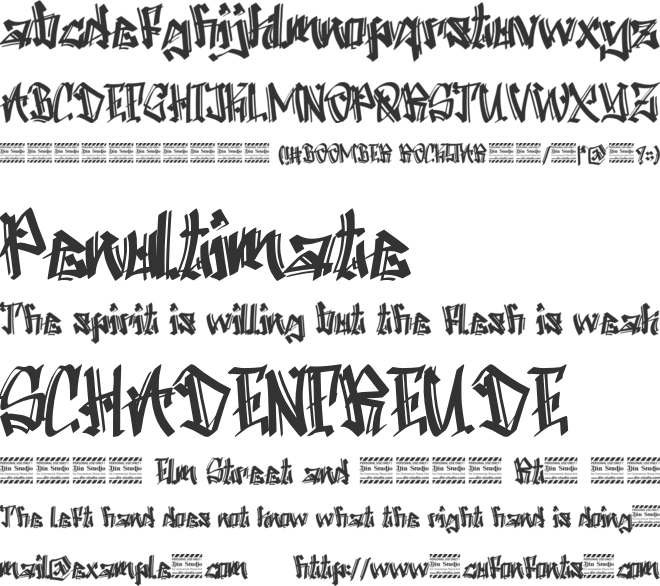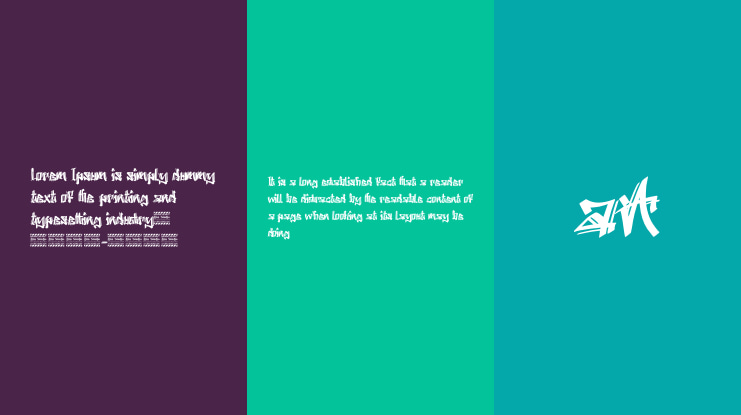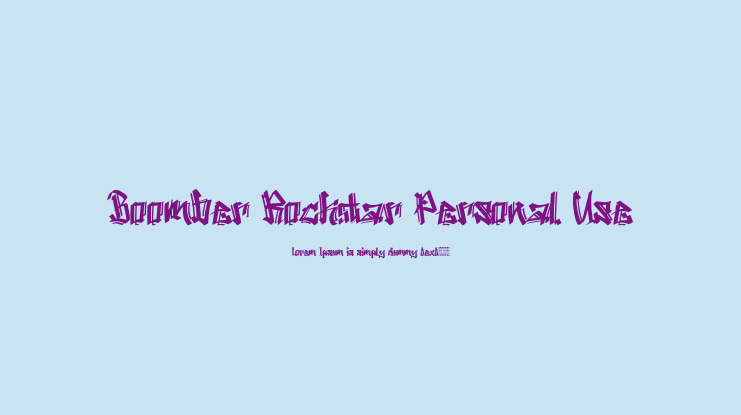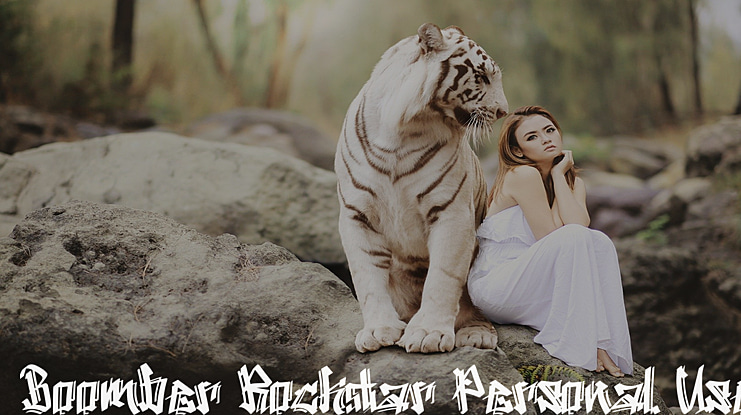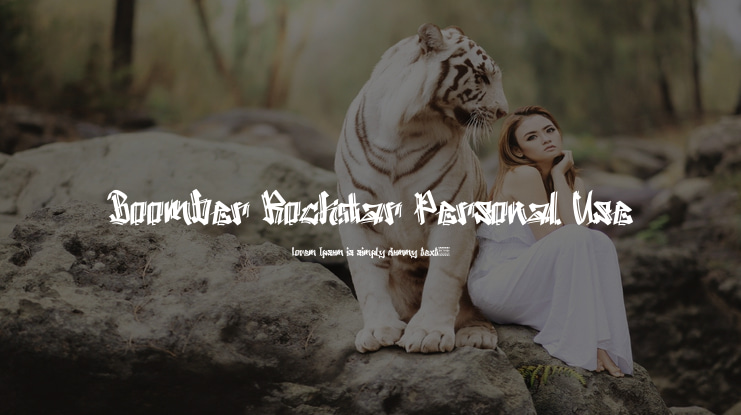
Introducing Boomber Rockstar – A Grafiti Font
This typeface with artistic style looks very interesting for loads of different projects and promotions. It is perfect to be used on your website, for your social media branding, Pinterest banners, printed products, and more!